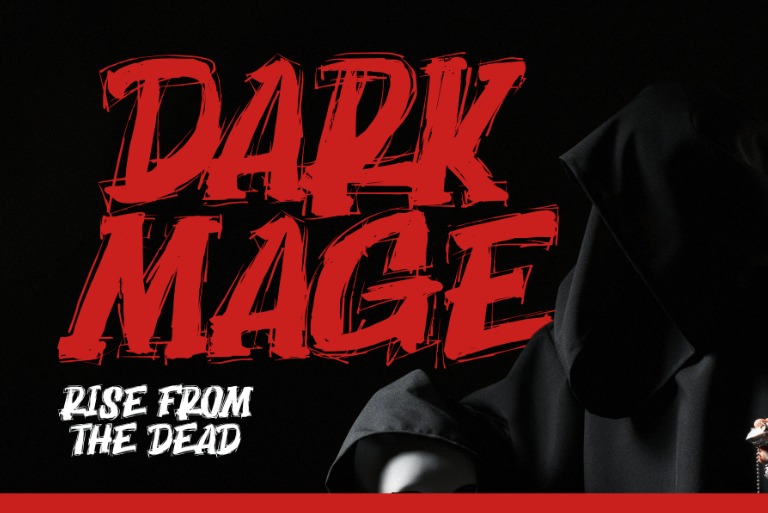
Dark Mage Font
Dark Mage Display Font
This font is bold, tightly spaced, and retains all of the brush imperfections. It has a nice contrast with opaque parts and transparent ones. Dark Mage is perfect for poster design, horror movie title design, t-shirt design, spooky poster design, instagram design, content design, music poster design, and other designs.